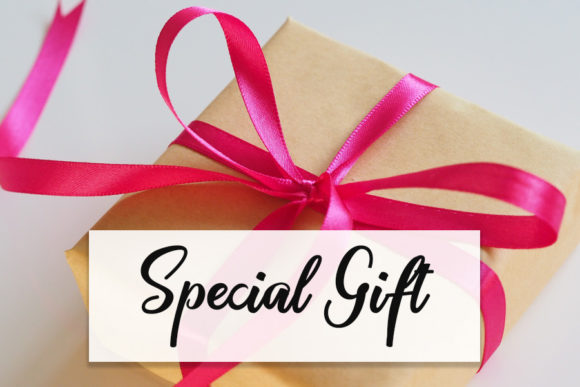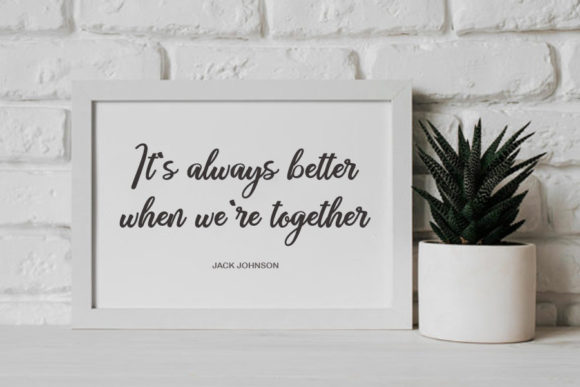
Barcelona Font
db-ku.com - Script & Handwritten -- Barcelona is a chic handwritten font with an impeccable form, inspired by a timeless calligraphy. Balanced and varied, this font was designed to enhance the beauty of your projects.